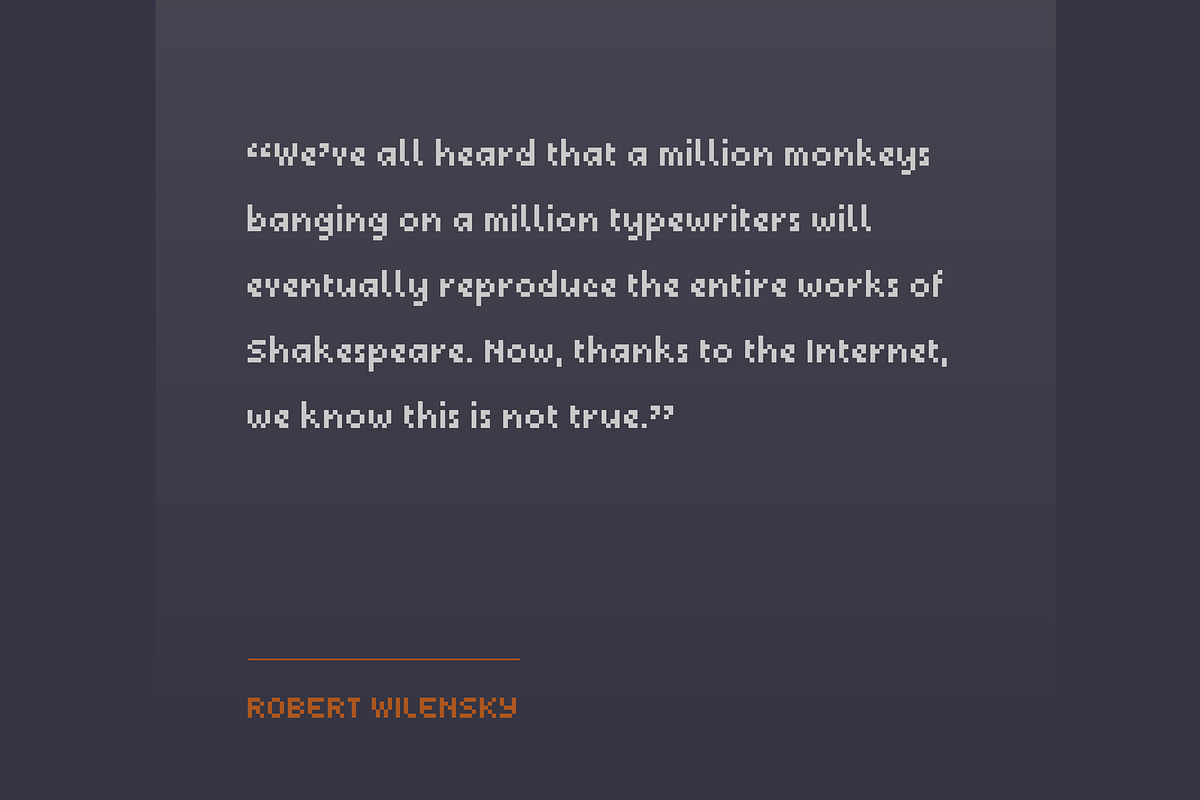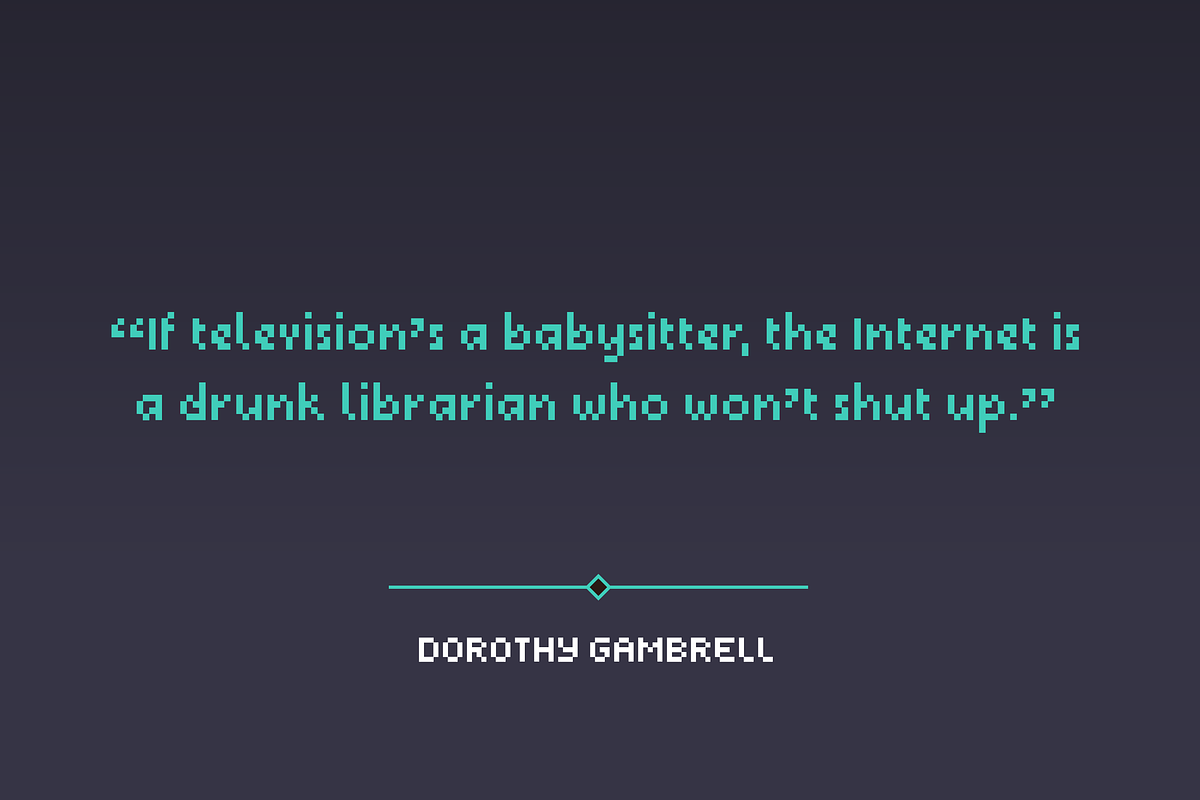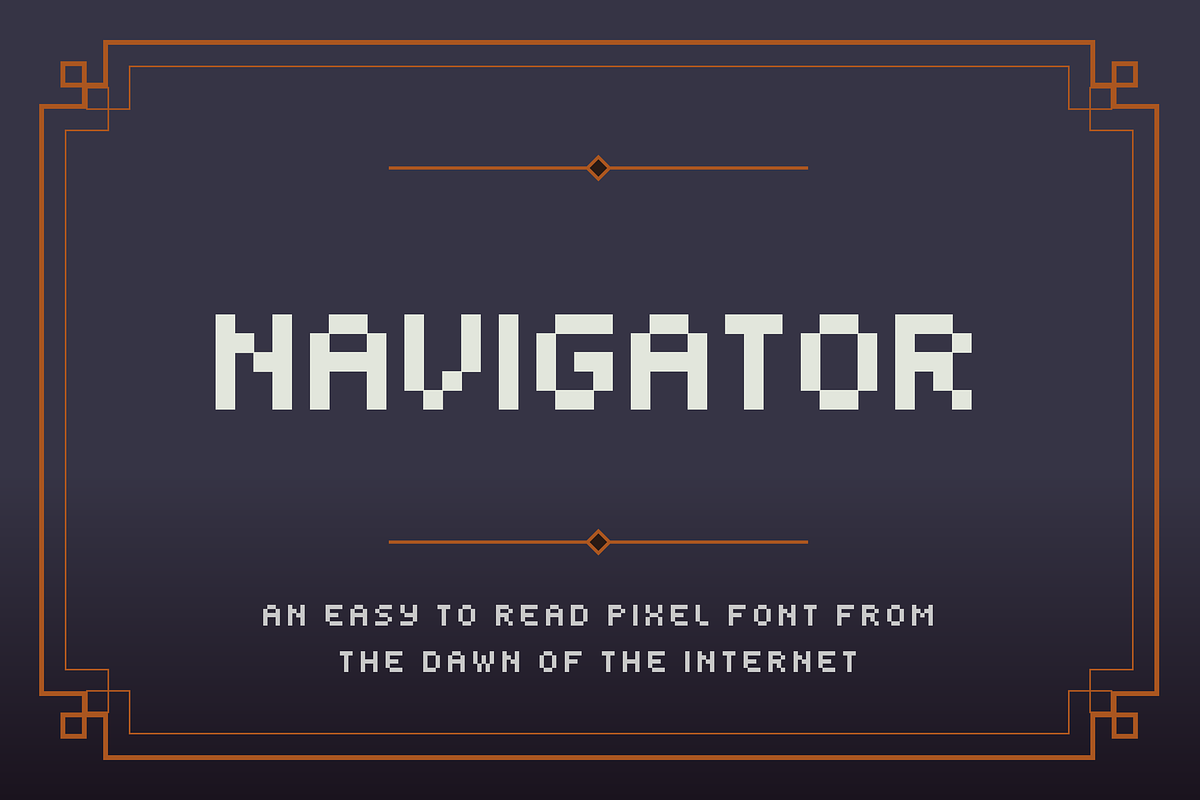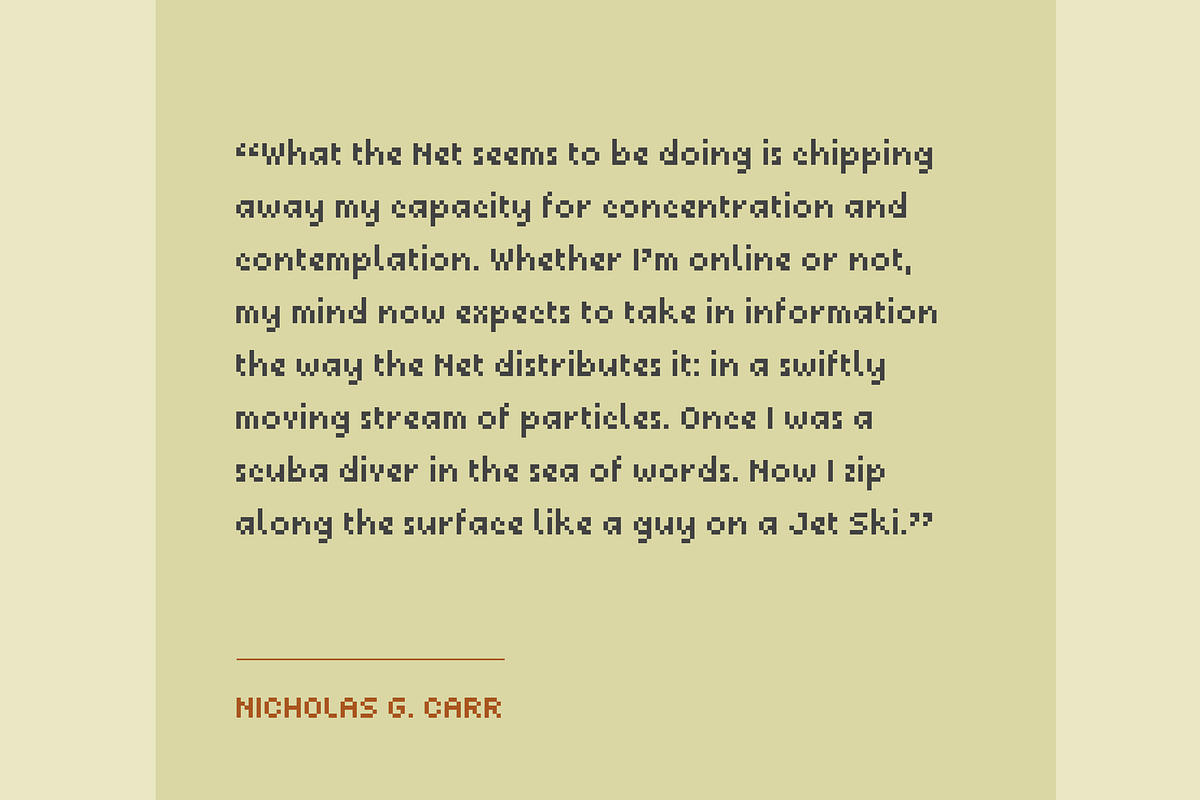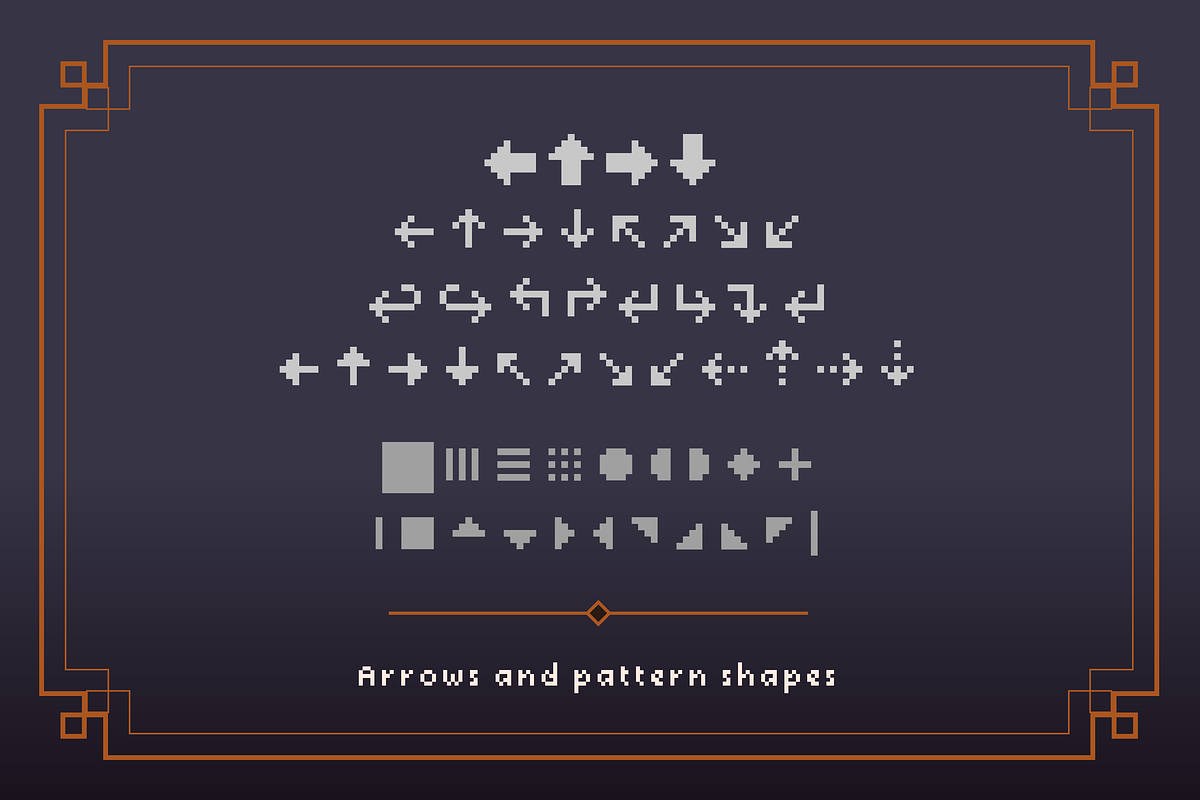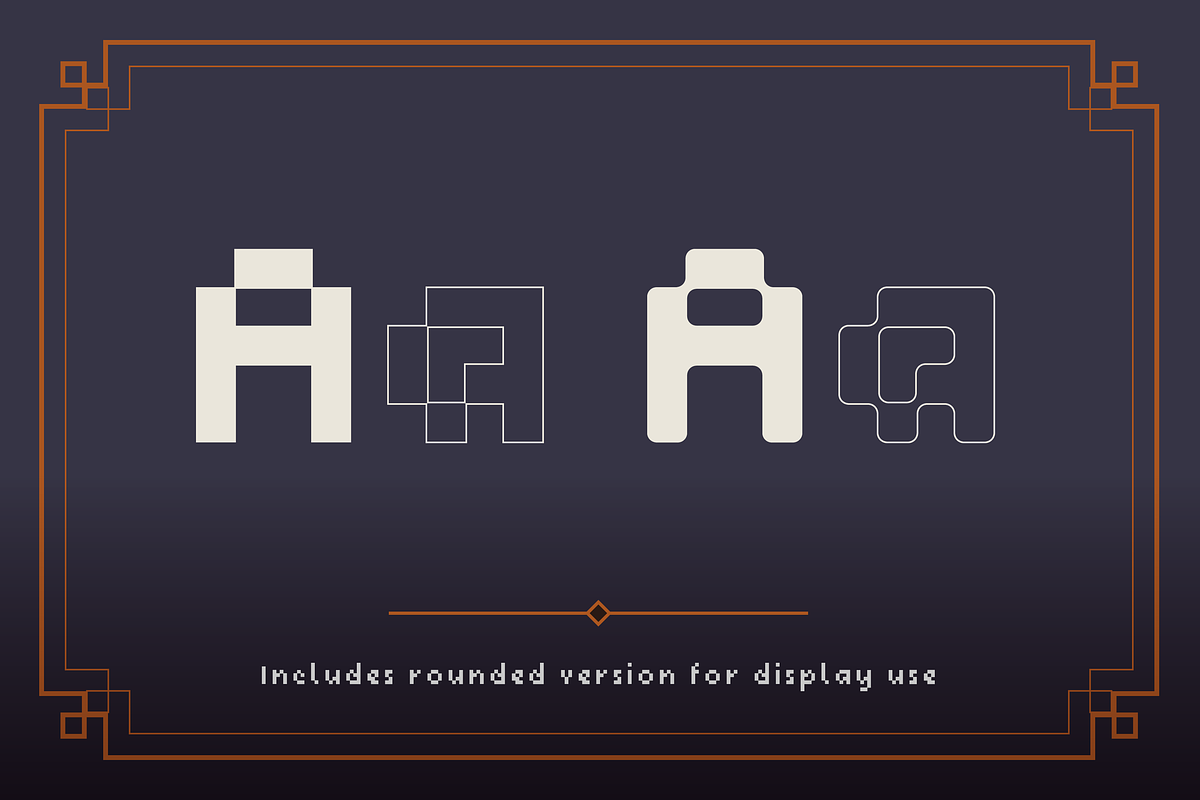
Navigator - Pixel Art font
Good legibility at small sizes.
Navigator Regular is optimised for use as a pixel font at 10px and multiples of 10px.
SB Navigator was designed for screen use, as a legible text typeface for use in website navigation menus. It was intended to be used as part of static pixel graphics or as part of a Flash animated menu, in the days when the web was a low-resolution experience, before webfonts became possible and when web designers were trying to find ways to push the internet forward from a design and usability point of view.
SB Navigator also performs well as a text font, retaining good legibility at small sizes, thanks to lessons learned in the production of SB Liquid. It is optimised for use at 10px but can also work well at 20px.
As a typeface it acts as a versatile alternative to the industry standard LCD font that SB Liquid is based on and would work well as part of an electronic display thanks to its clear letterforms. The family also features a rounded pixel version, opening it up for use as a headline typeface for high-DPI displays.